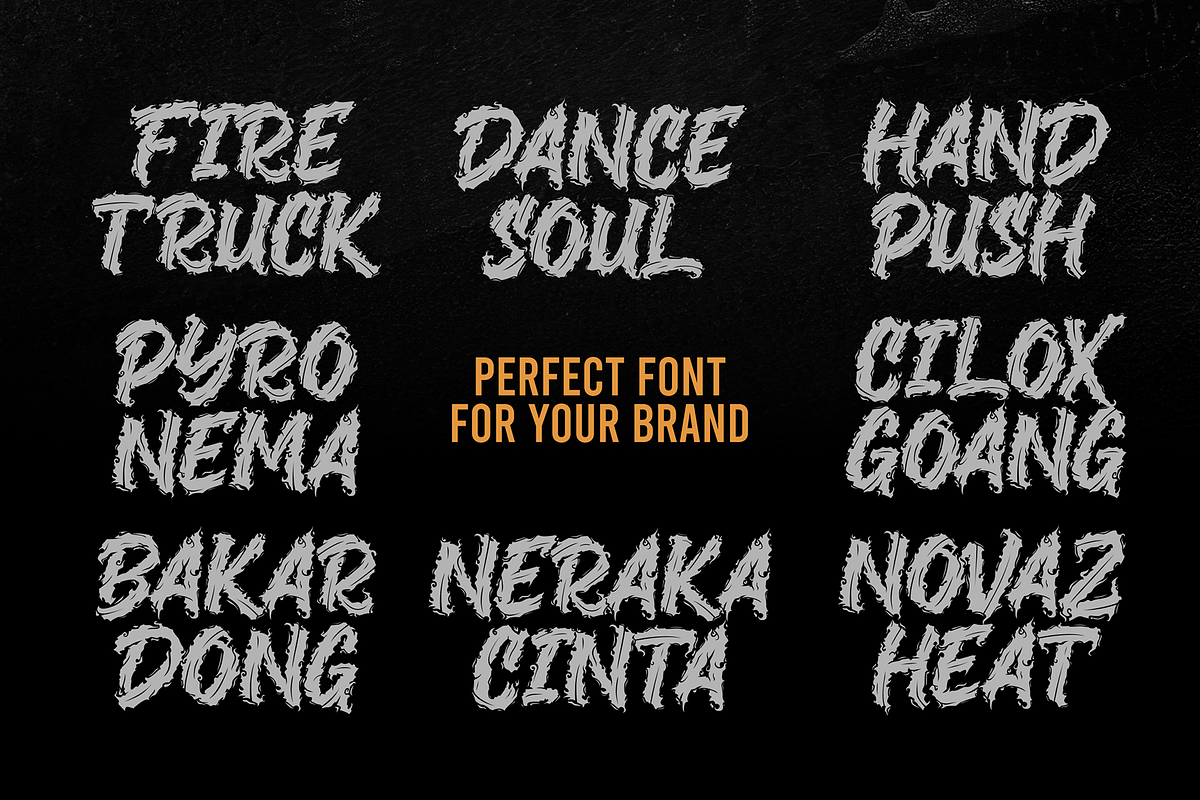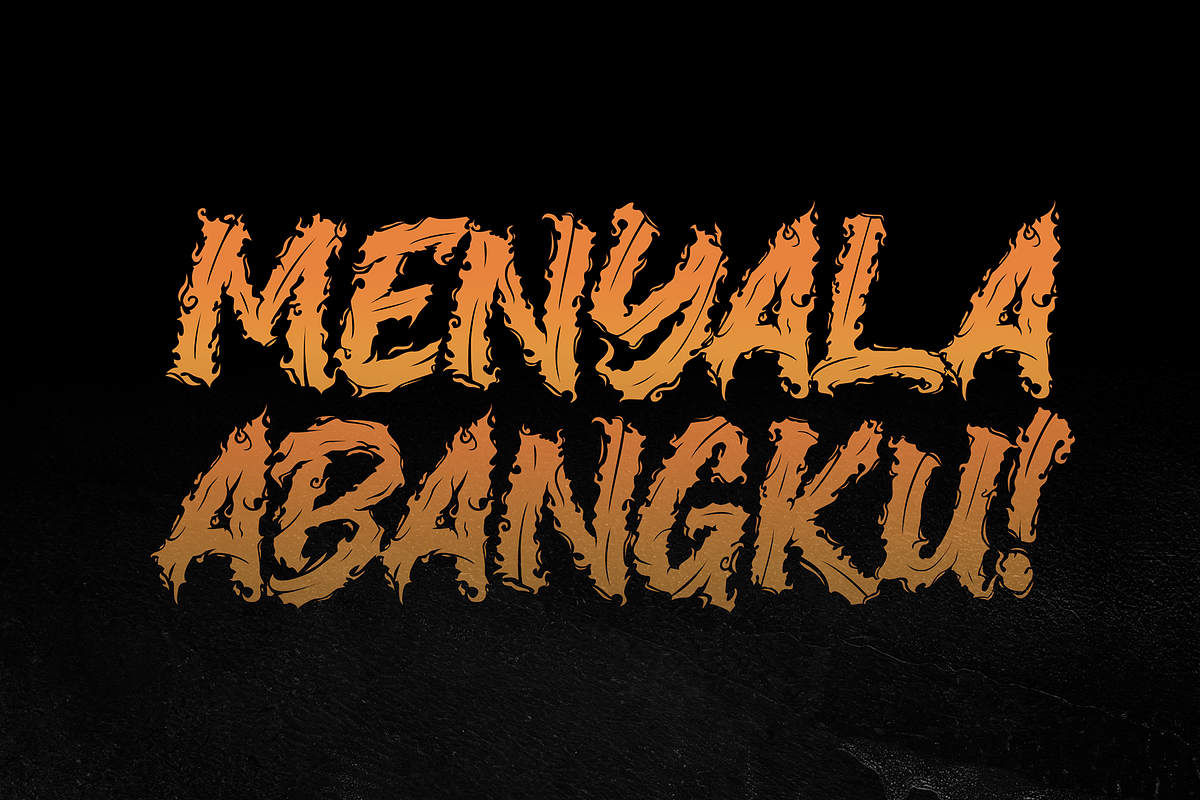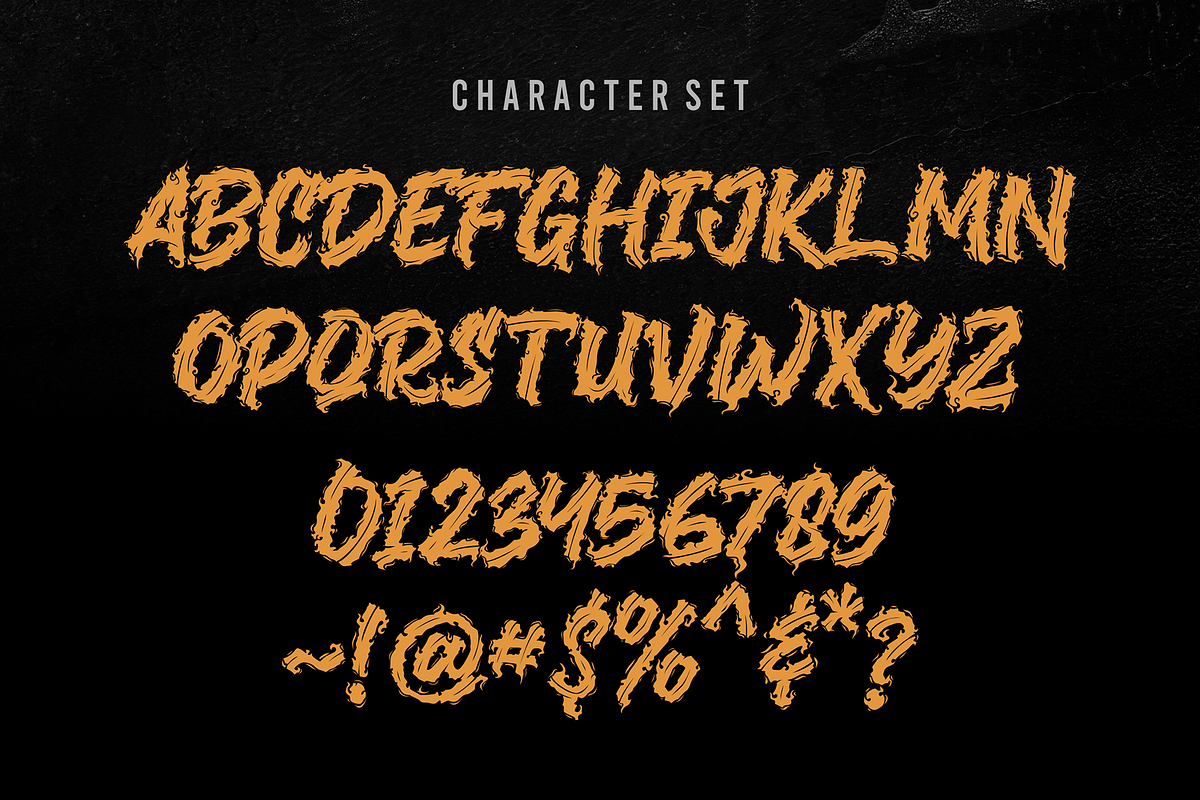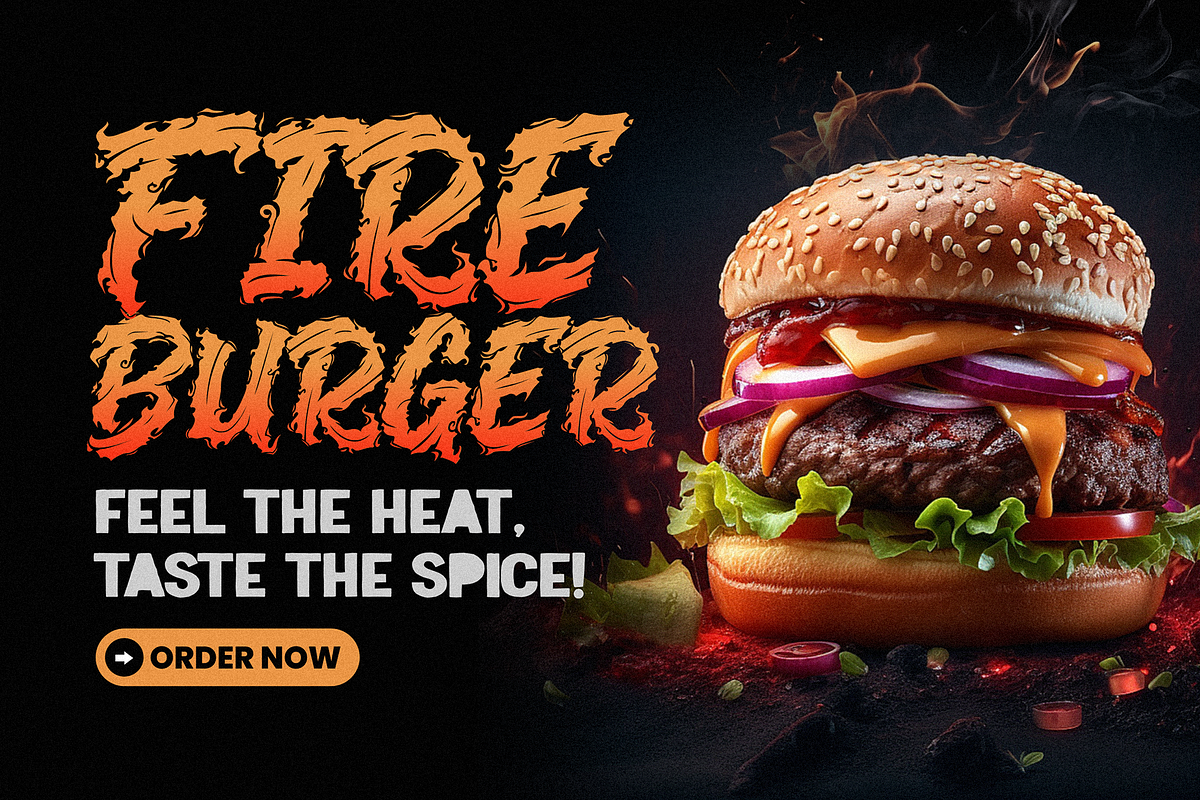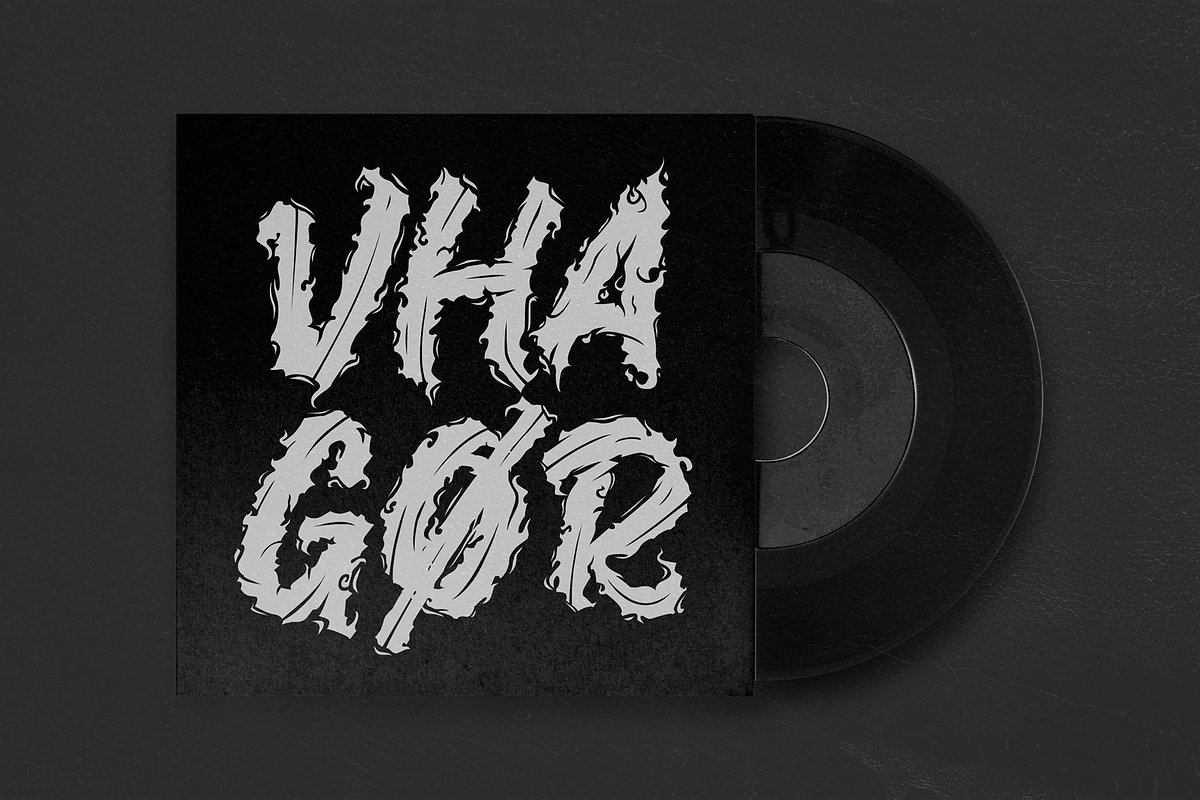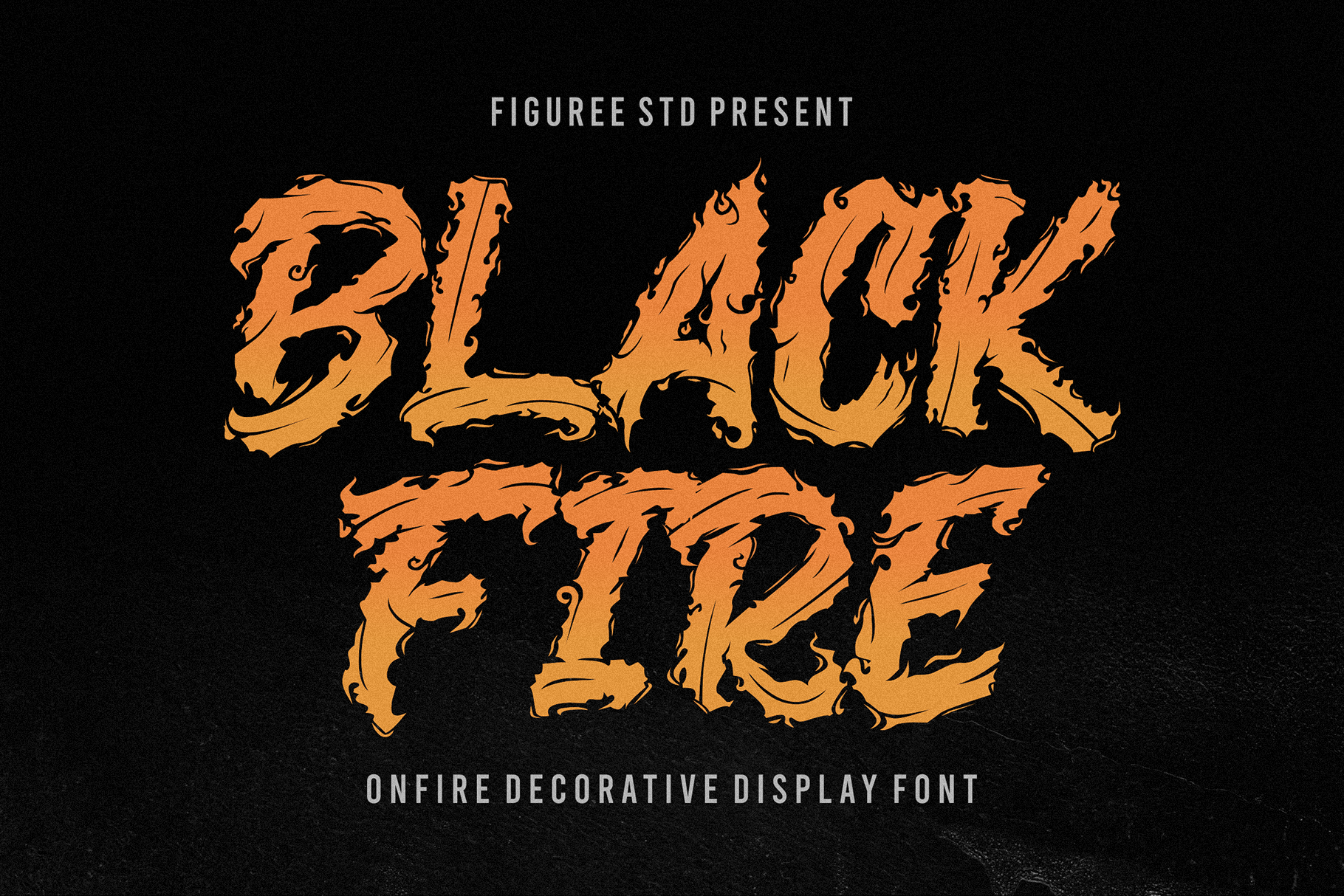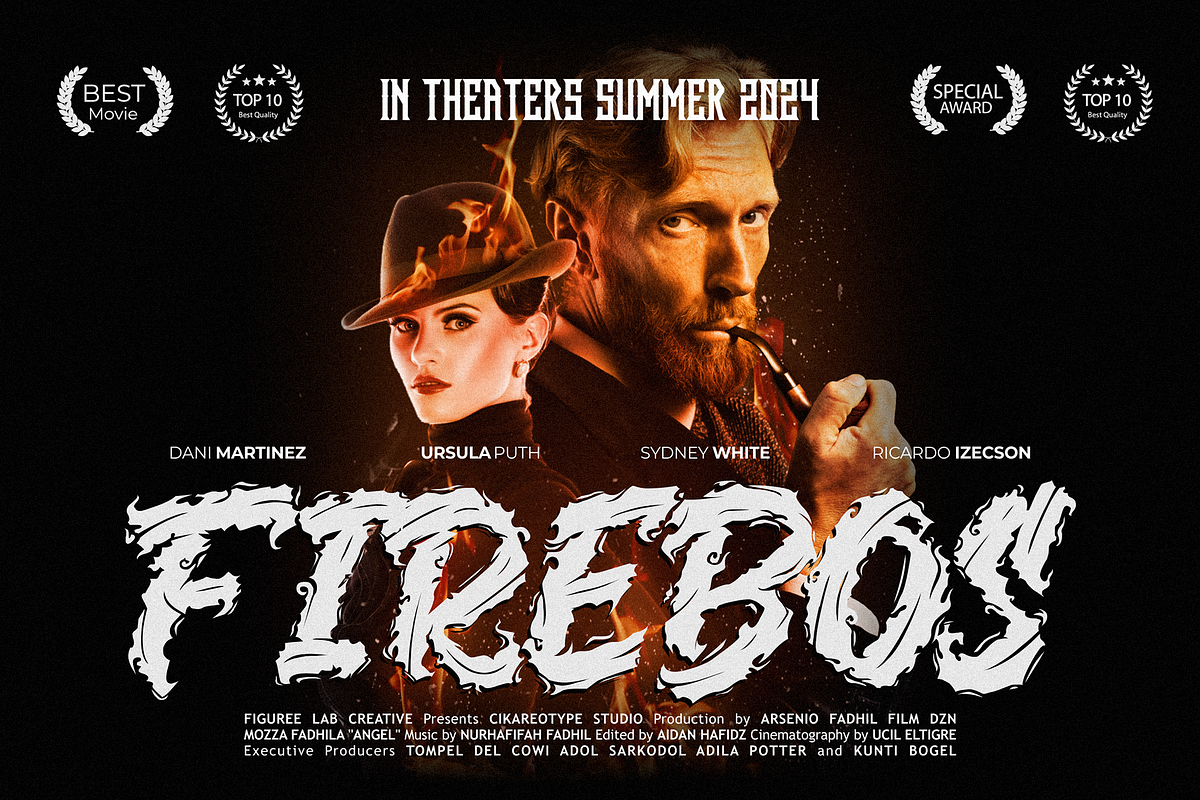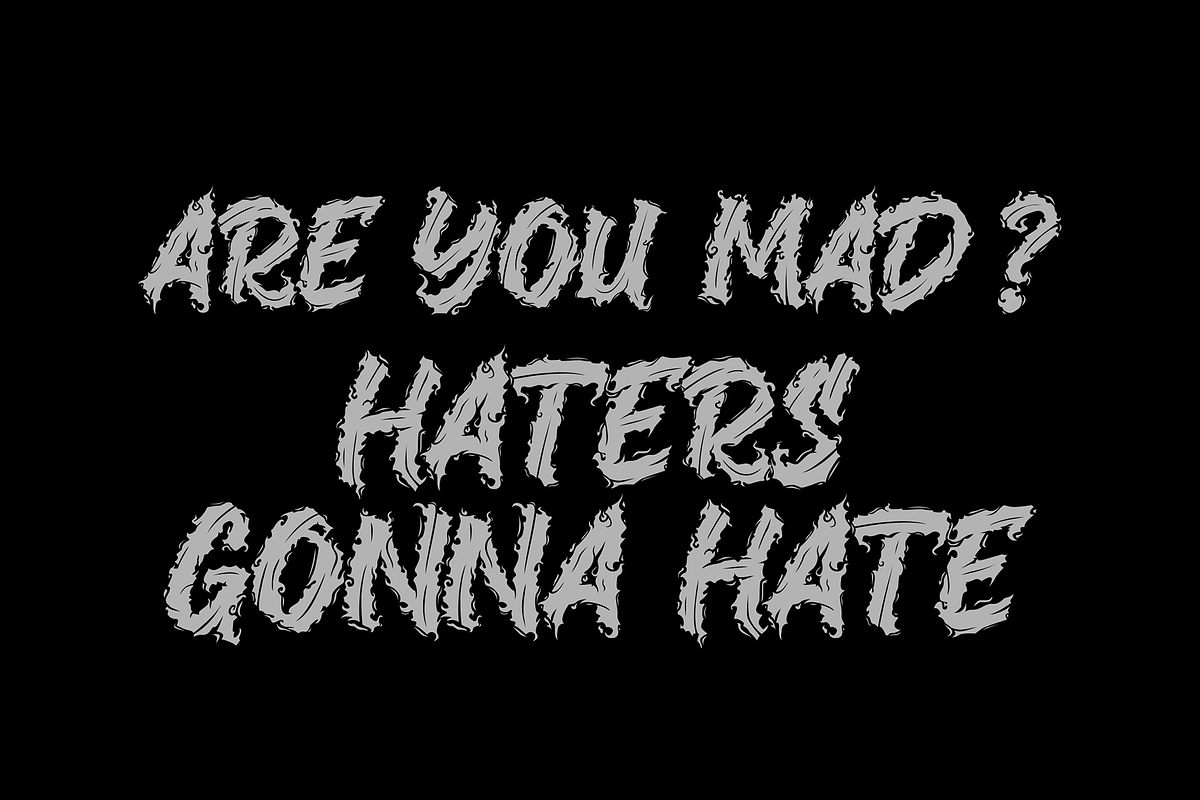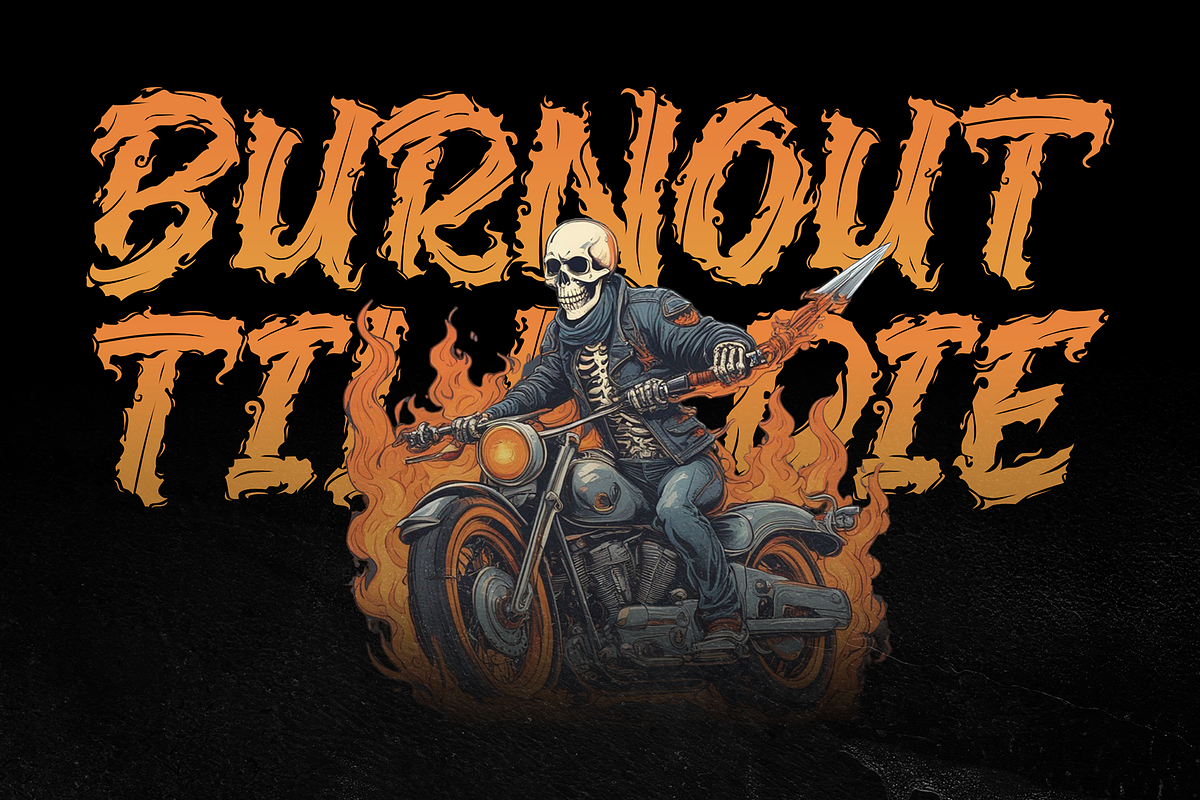
Black Fire - Onfire Decorative Font
Introducing Black Fire – the Decorative Fire Font that ignites your designs with fierce intensity and dramatic flair. Perfect for projects that demand a bold and fiery touch, Black Fire combines striking letterforms with flame-inspired embellishments to create a font that is both powerful and captivating.
🔥 Blazing Intensity: Black Fire sets your designs ablaze with its bold and dynamic style. Each letter is adorned with flame-like details, evoking the fierce energy and captivating allure of fire, making it ideal for projects that need a strong and dramatic visual impact.
⚡ Striking and Bold: With its eye-catching design, Black Fire captures attention. The font’s decorative elements ensure your text stands out, making it perfect for headlines, posters, and branding that require a commanding and memorable statement.
🌟 Decorative Elegance: Whether you're designing for music events, sports teams, or edgy brands, Black Fire adapts effortlessly. Its unique fire-inspired design adds a touch of bold sophistication to a wide range of applications, enhancing the visual appeal of your work.
💥 Fiery Visual Appeal: Black Fire’s intense and decorative look captures the essence of flames. The font's distinctive character ensures your message is conveyed with passion and strength, leaving a lasting impression on your audience.
🚀 Versatile for Various Projects: From album covers and merchandise to digital graphics and promotional materials, Black Fire excels in any context. Its fiery aesthetic enhances your designs, making them resonate with energy and intensity.
Ignite your creativity with Black Fire – the Decorative Fire Font that elevates your designs. Perfect for adding a bold and dramatic touch to any project, Black Fire is your go-to font for creating striking and impactful text that truly stands out.